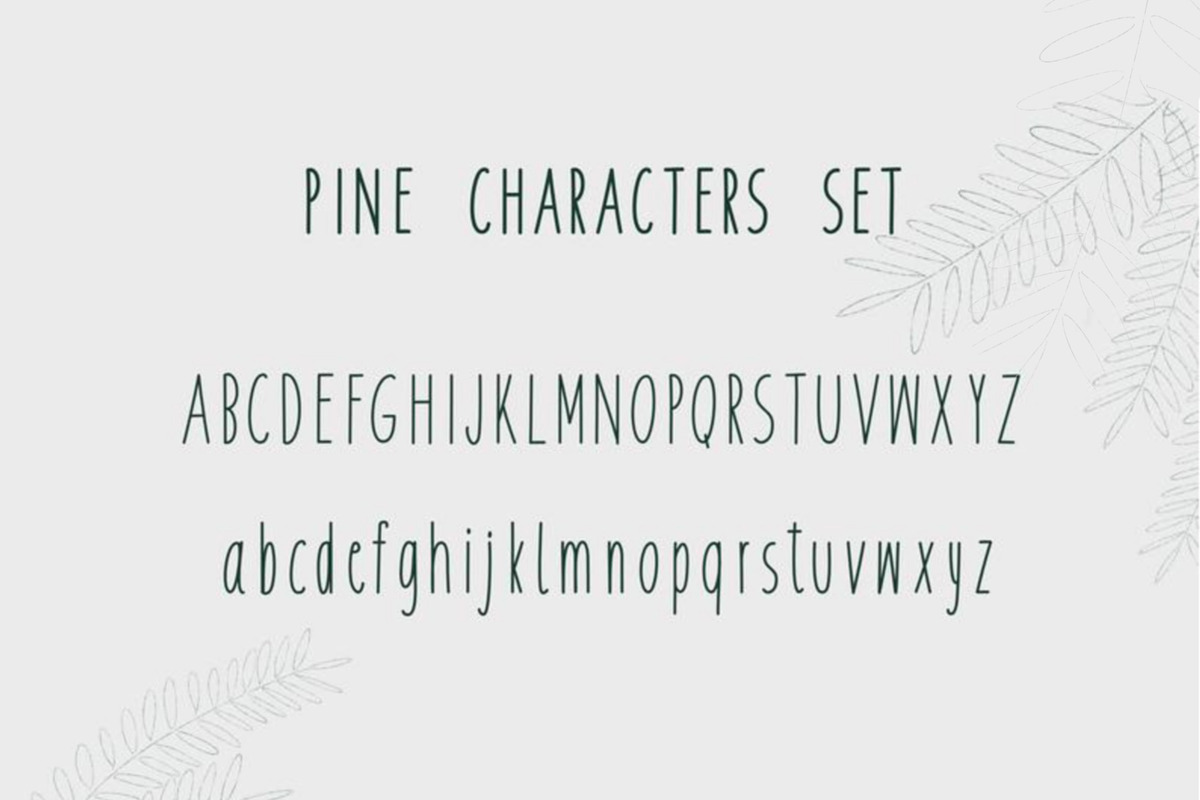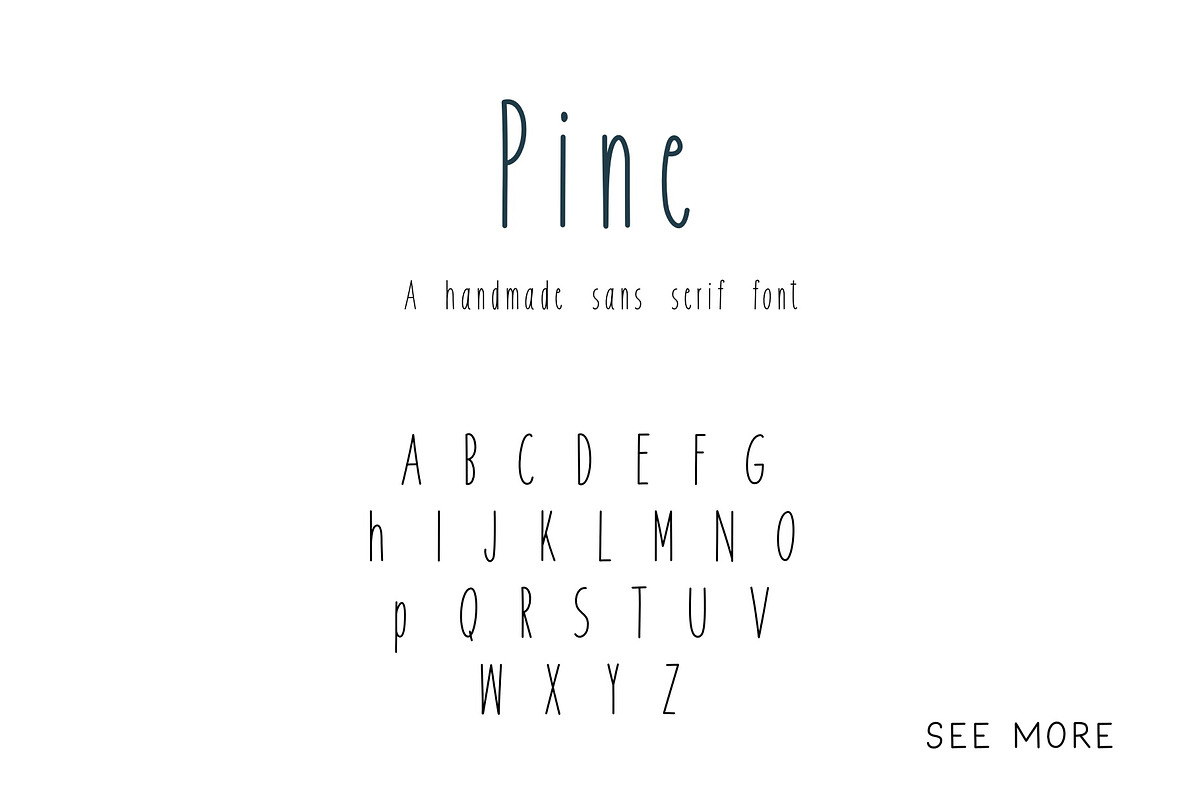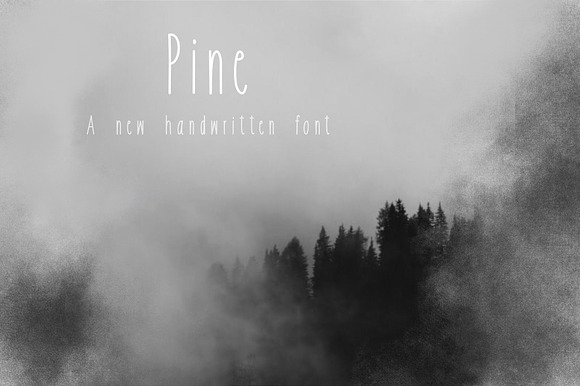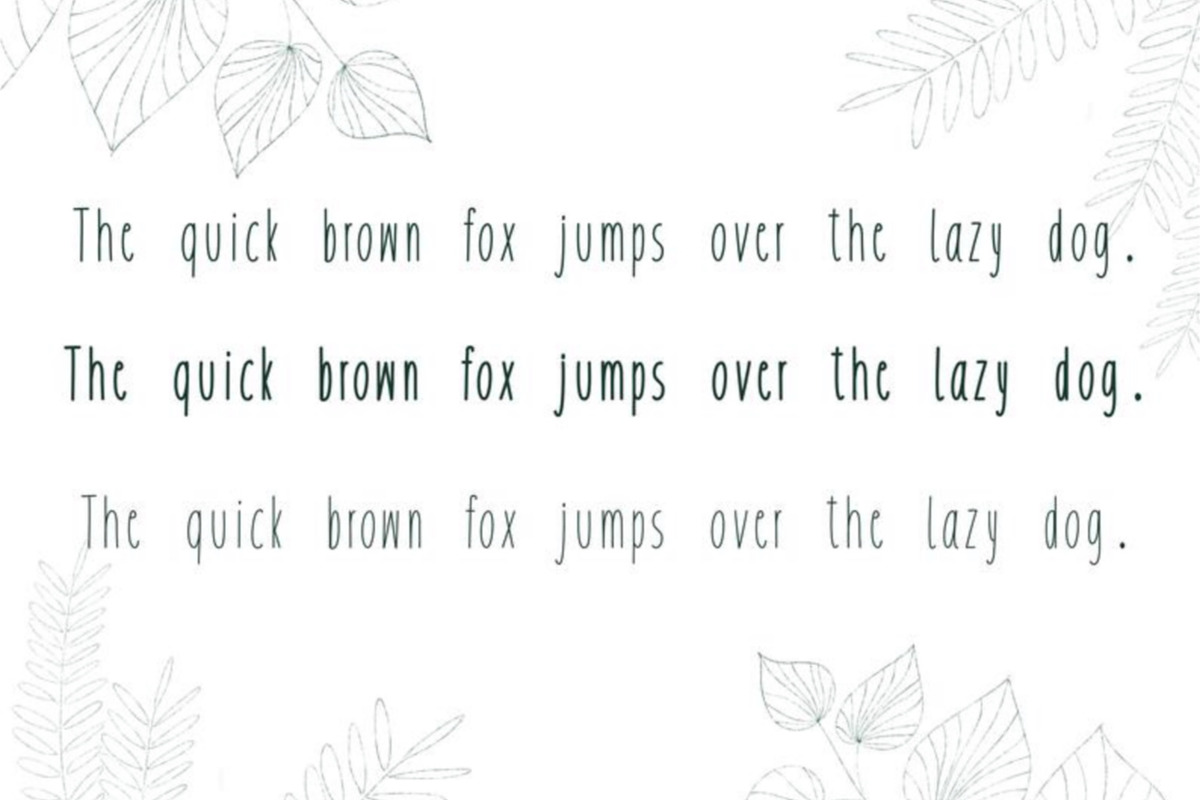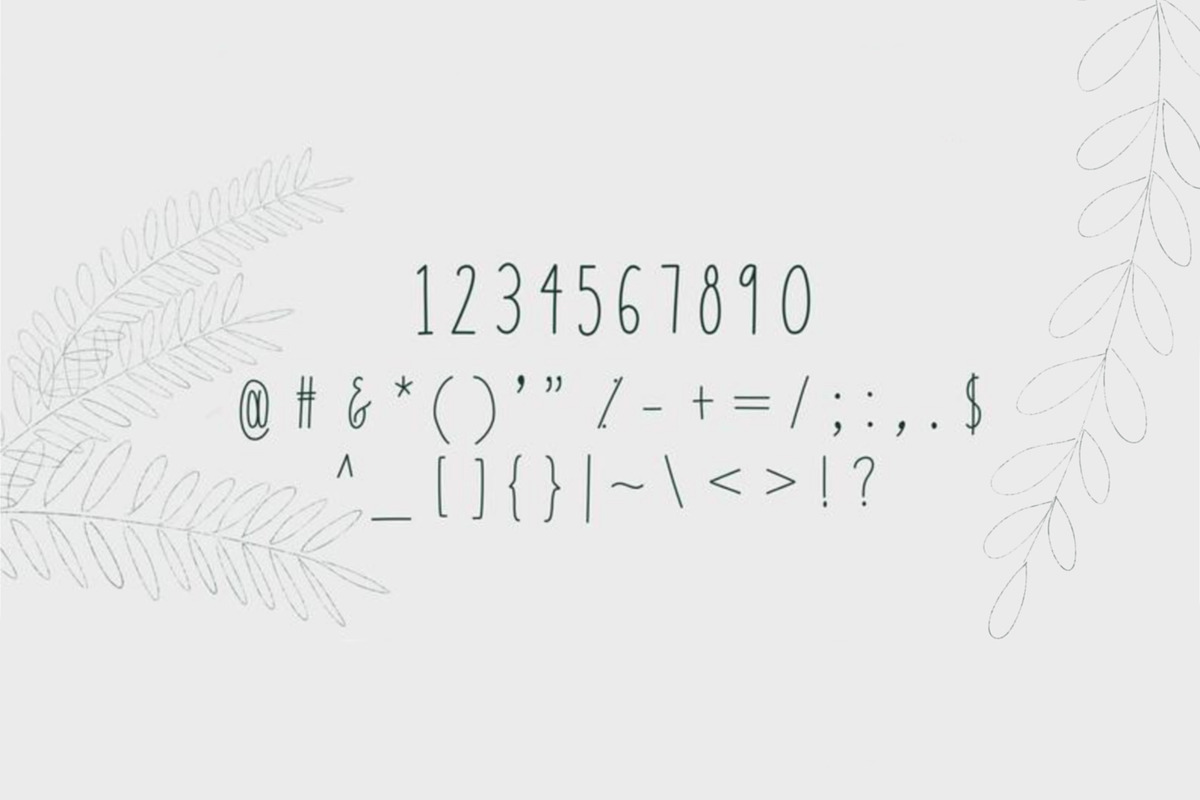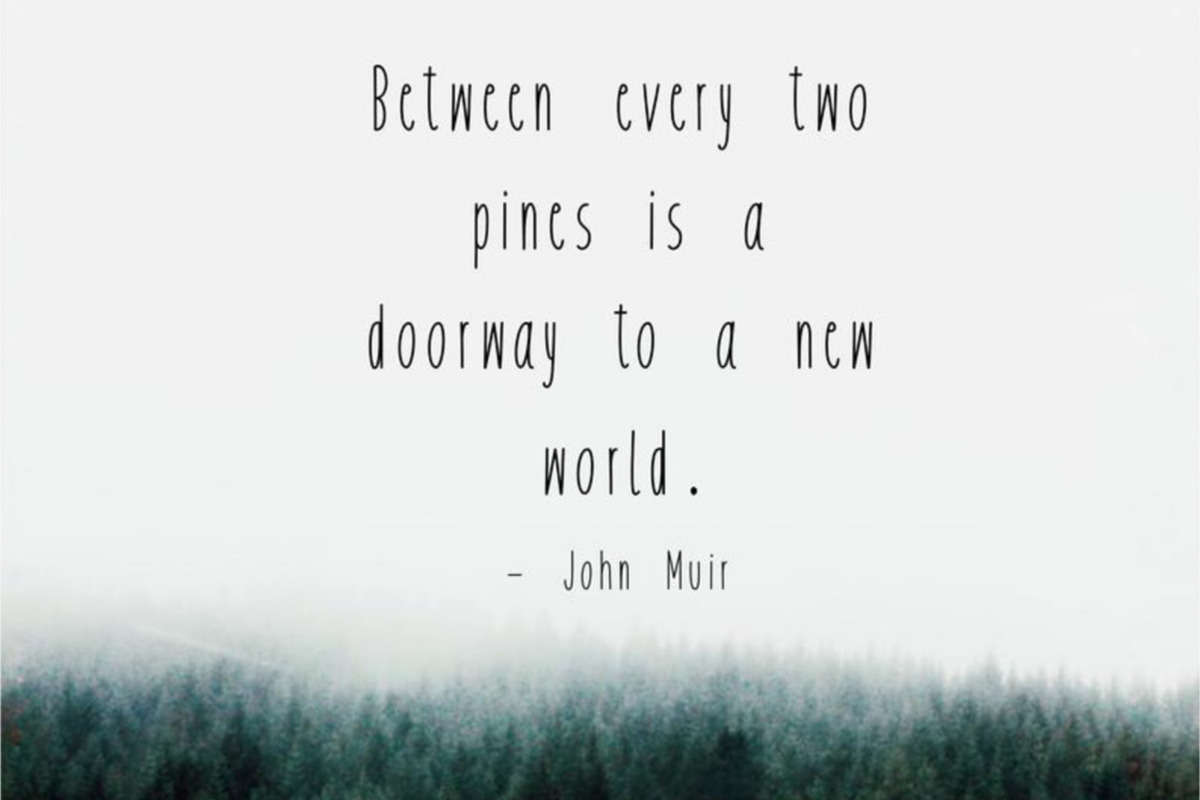
Pine handwritten font
Pine is the artistic handmade sans serif font!
As the name suggests I create this font inspired by long pine trees. Aren’t they beautiful?
Pine is perfect for: logos, branding, wedding invitations, business cards, greeting cards, posters, magazines, social media, planner prints and websites.
- Includes three weights - standard, bold and light.